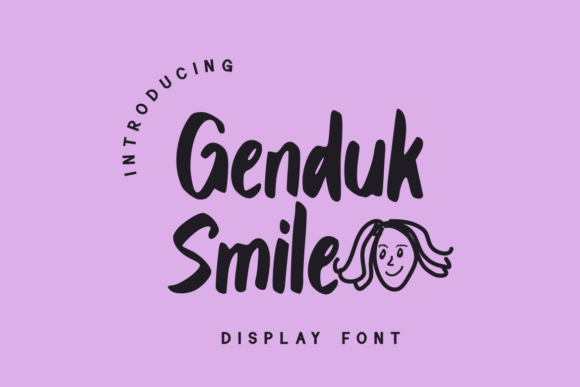
Introducing Genduk Smile Font, the playful and joyous font that will add a touch of cheer to your designs!
With its bouncy and friendly curves, Genduk Smile is the perfect choice for creating designs that are sure to put a smile on your face. This display font is bursting with personality, making it ideal for projects that need a little extra pop.
Indulge in the whimsical world of Genduk Smile Font. Its playful nature makes it the perfect choice for children's designs, such as invitations, posters, and storybooks. Let your imagination soar as you create designs that are both fun and engaging for the little ones.
The versatility of Genduk Smile Font extends beyond children's designs. Its charming and cheerful appearance makes it suitable for a wide range of projects, including logos, branding, social media graphics, and website designs. Embrace the playful spirit of Genduk Smile Font and let your creativity shine.
Unleash your inner child and embrace the magic of Genduk Smile Font. Its cheerful and playful nature will add a touch of joy to any design project. Download Genduk Smile Font today and let your designs radiate with happiness!